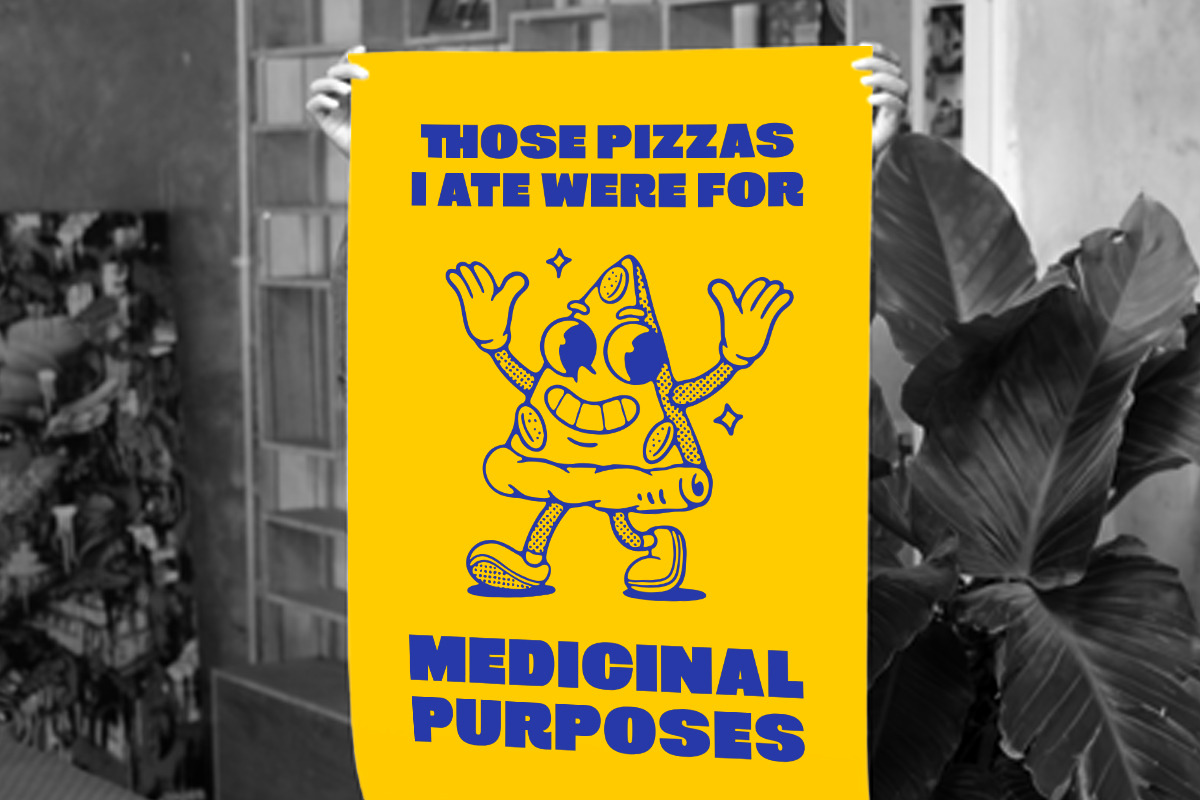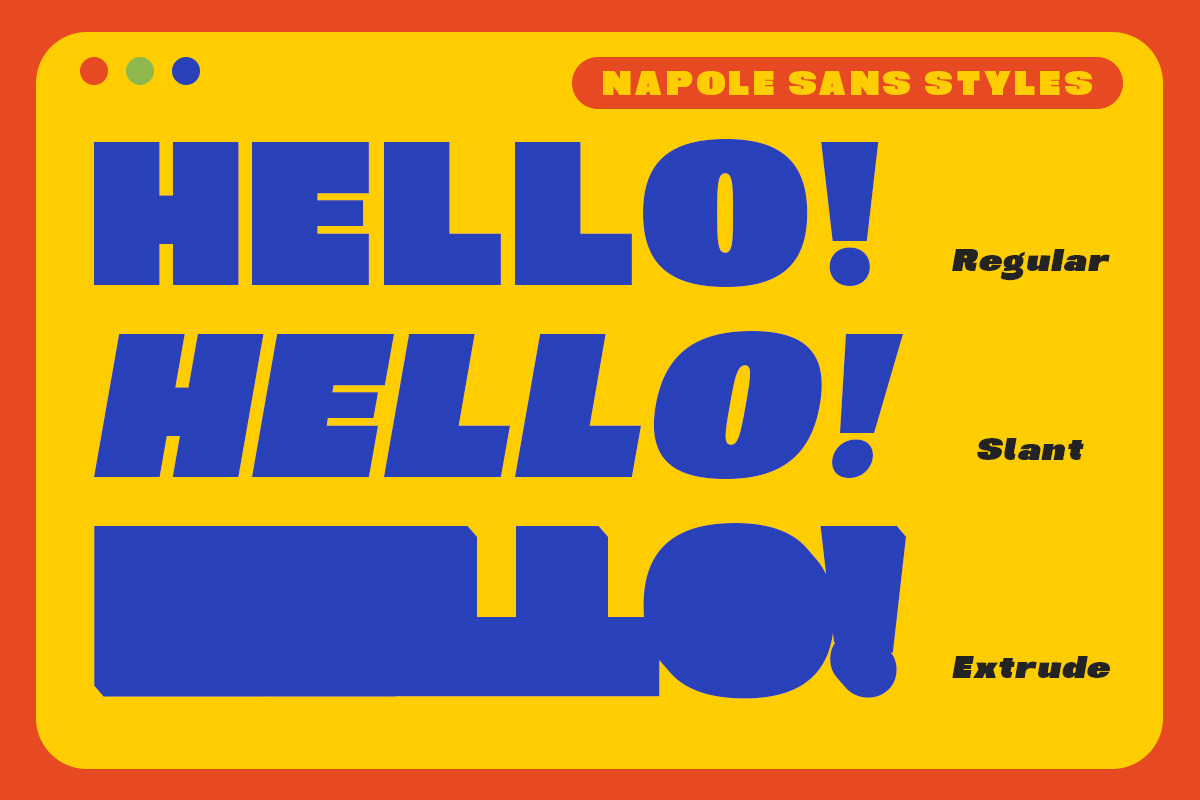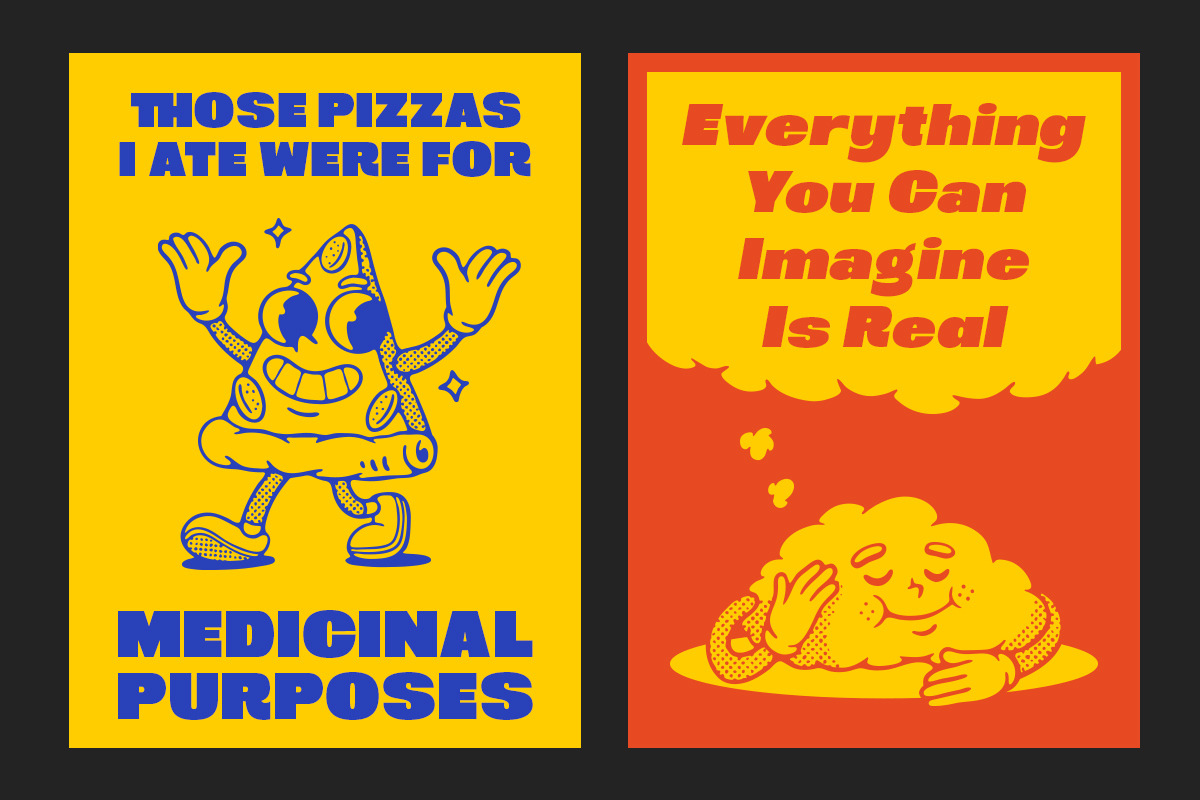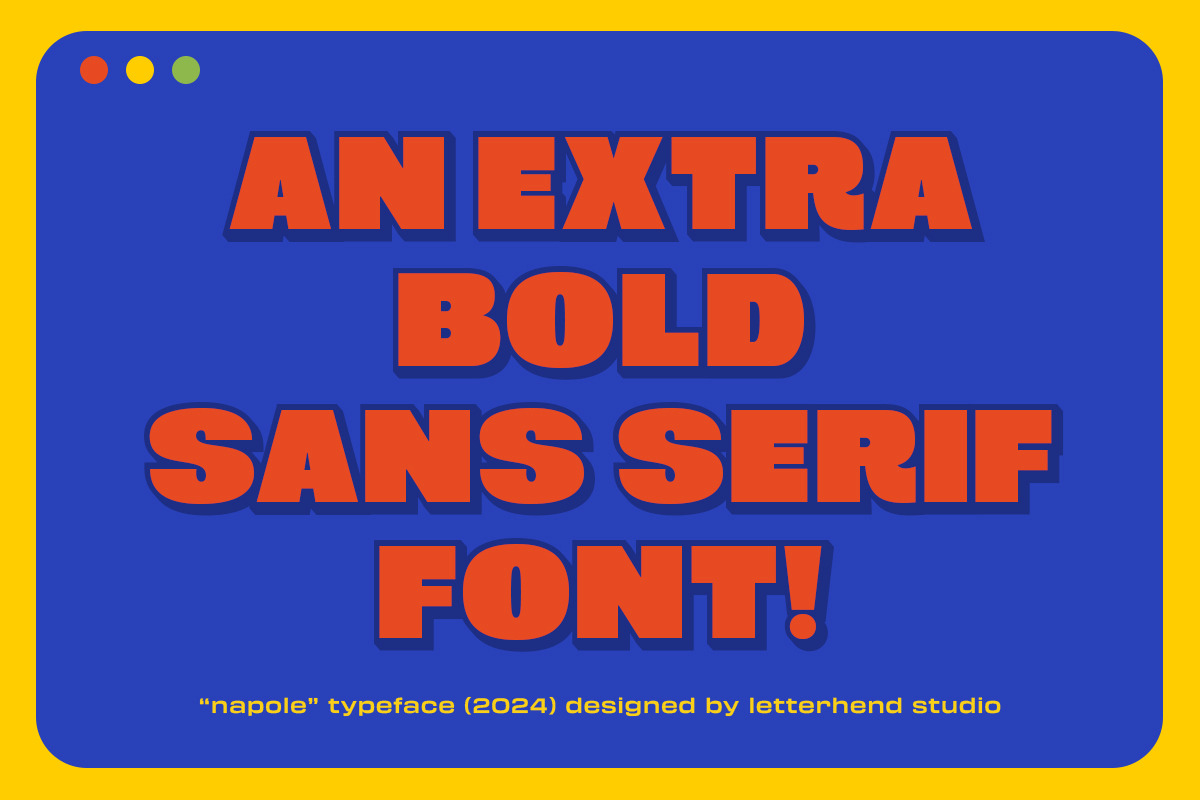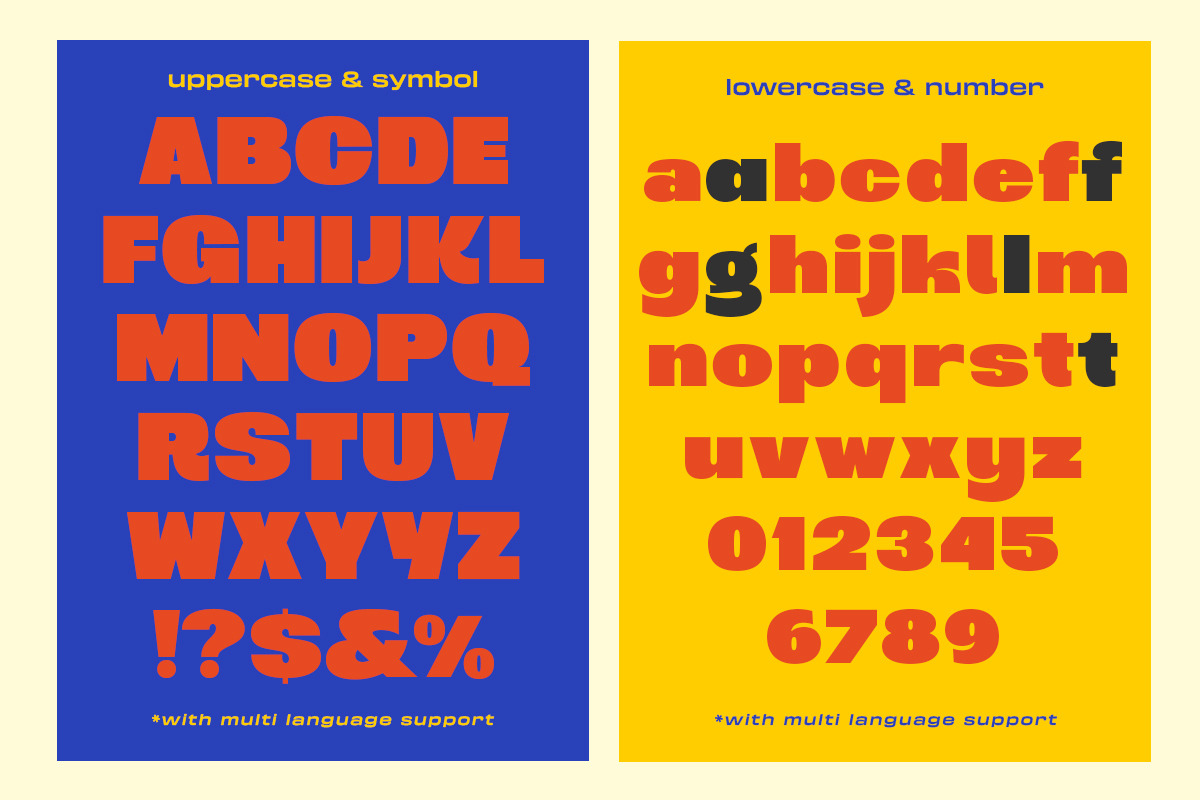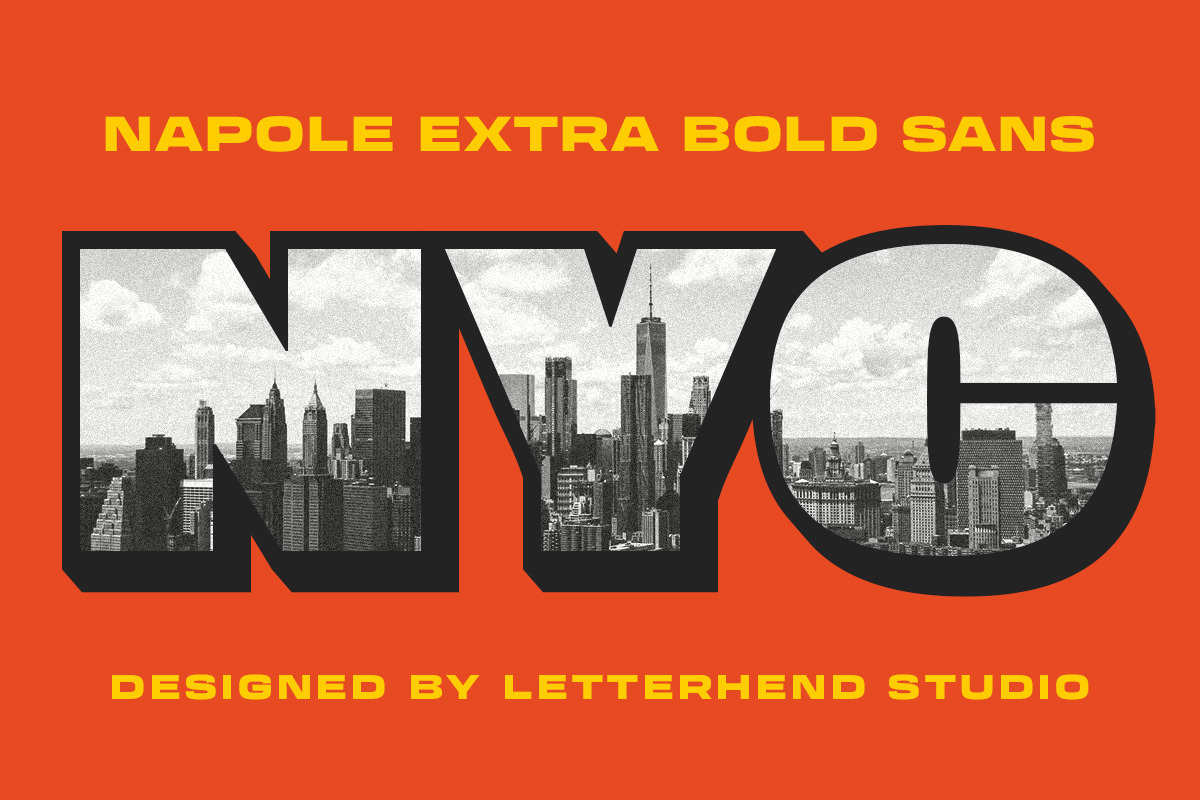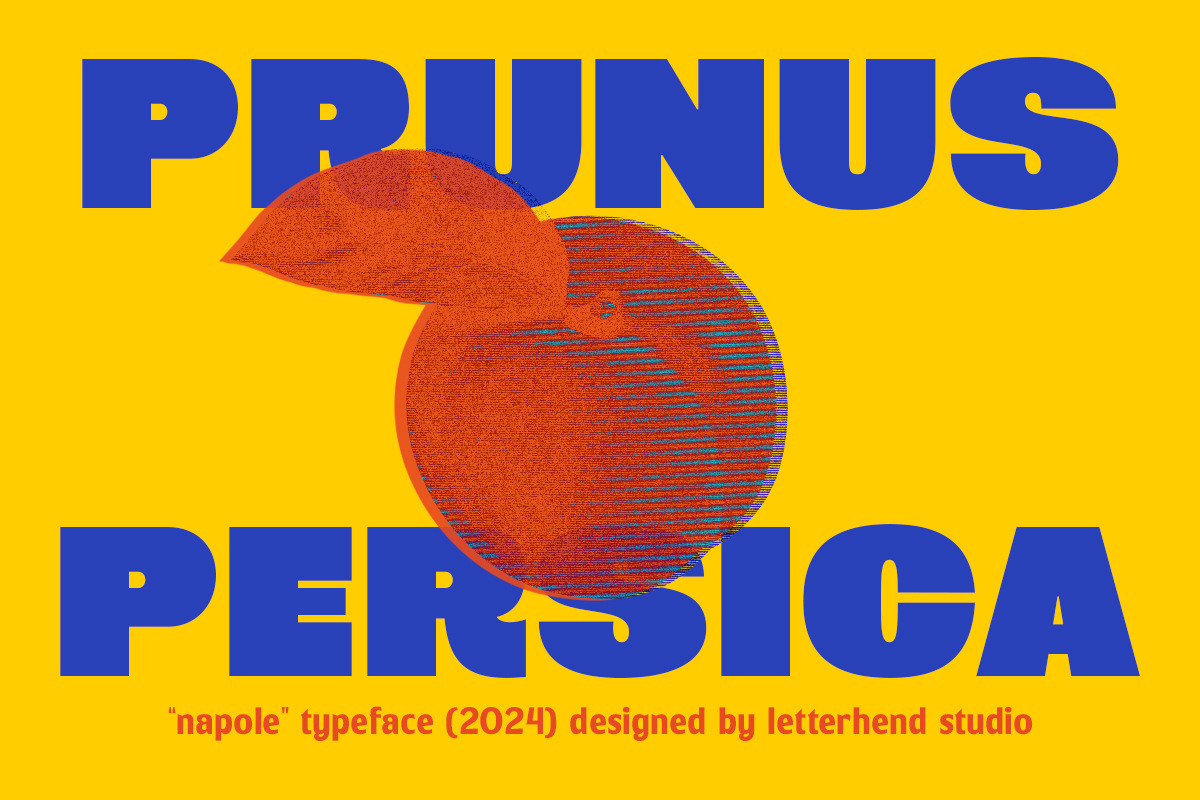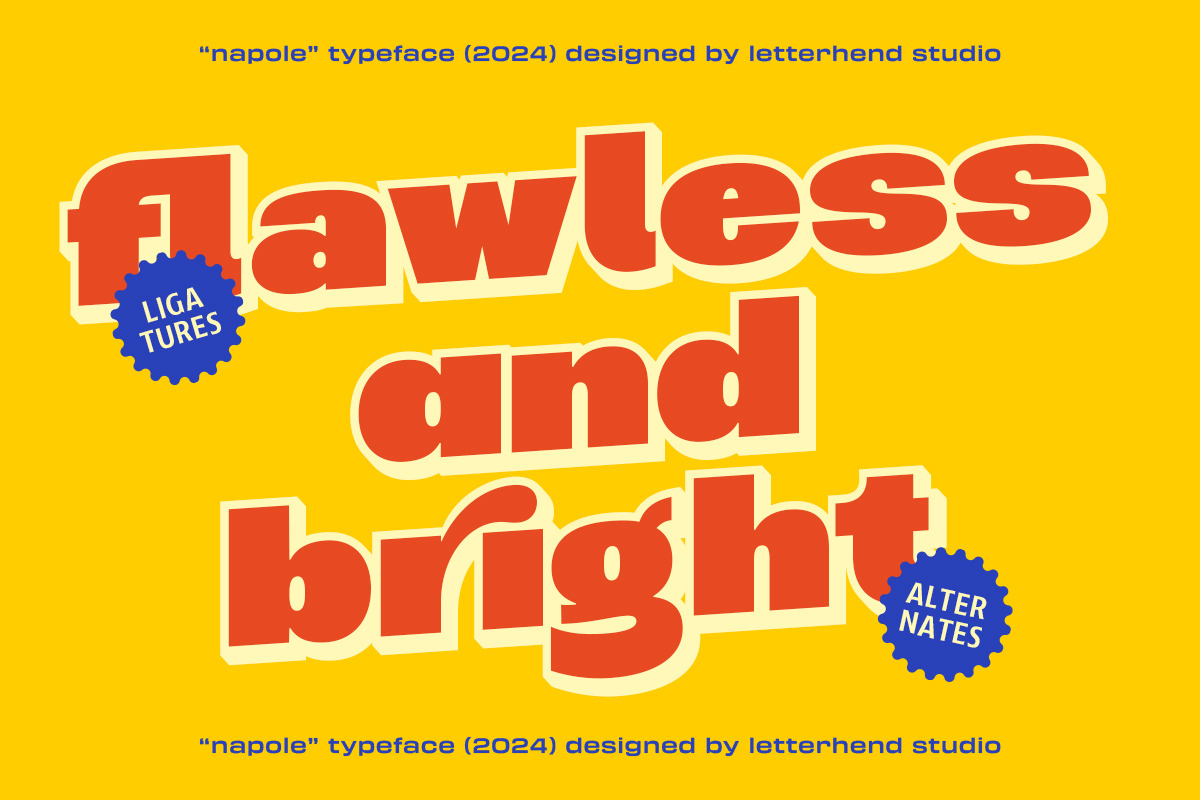
Napole Bold Sans
Napole is a heavy, bold, standout sans serif. Available with slant and extrude version. This type of font perfectly made to be applied as a headline, logo, title, quotes which is need a standout font, and the other various formal forms such as invitations, labels, logos, magazines, books, greeting / wedding cards, packaging, fashion, make up, stationery, novels, labels or any type of advertising purpose.
- Alternates/Ligatures